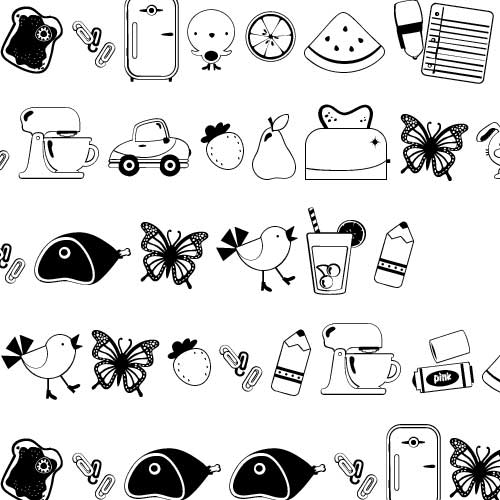
DB Pistachio Piffle - DB
This fun doodlebat font is bursting with personality! This playful collection features a charming mix of 26 whimsical imagery—from school supplies and tasty treats to cheerful birds, blooming flowers, fruity favorites, and even quirky everyday objects. Perfect for cards, crafts, gifts, planner stickers, scrapbook supplies, classrooms, and more!